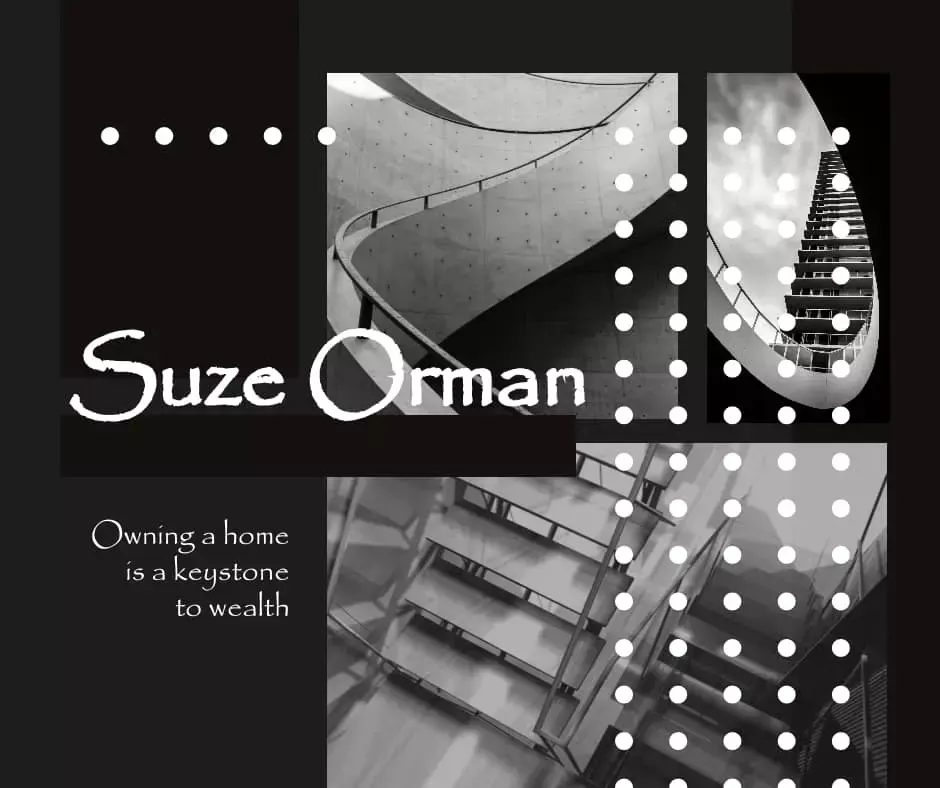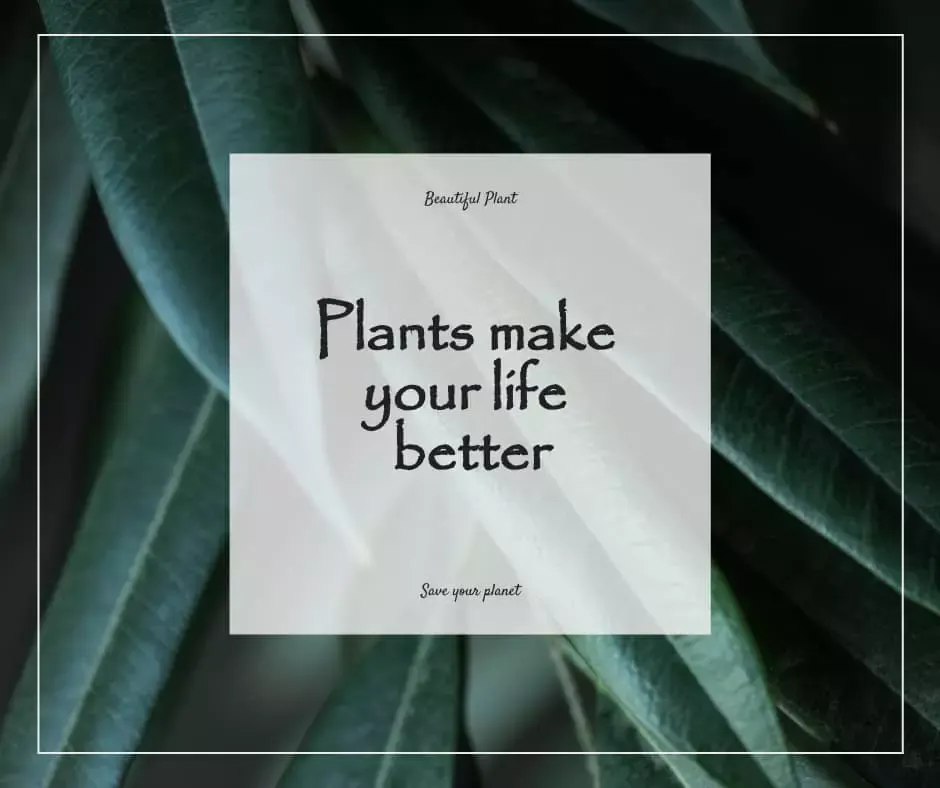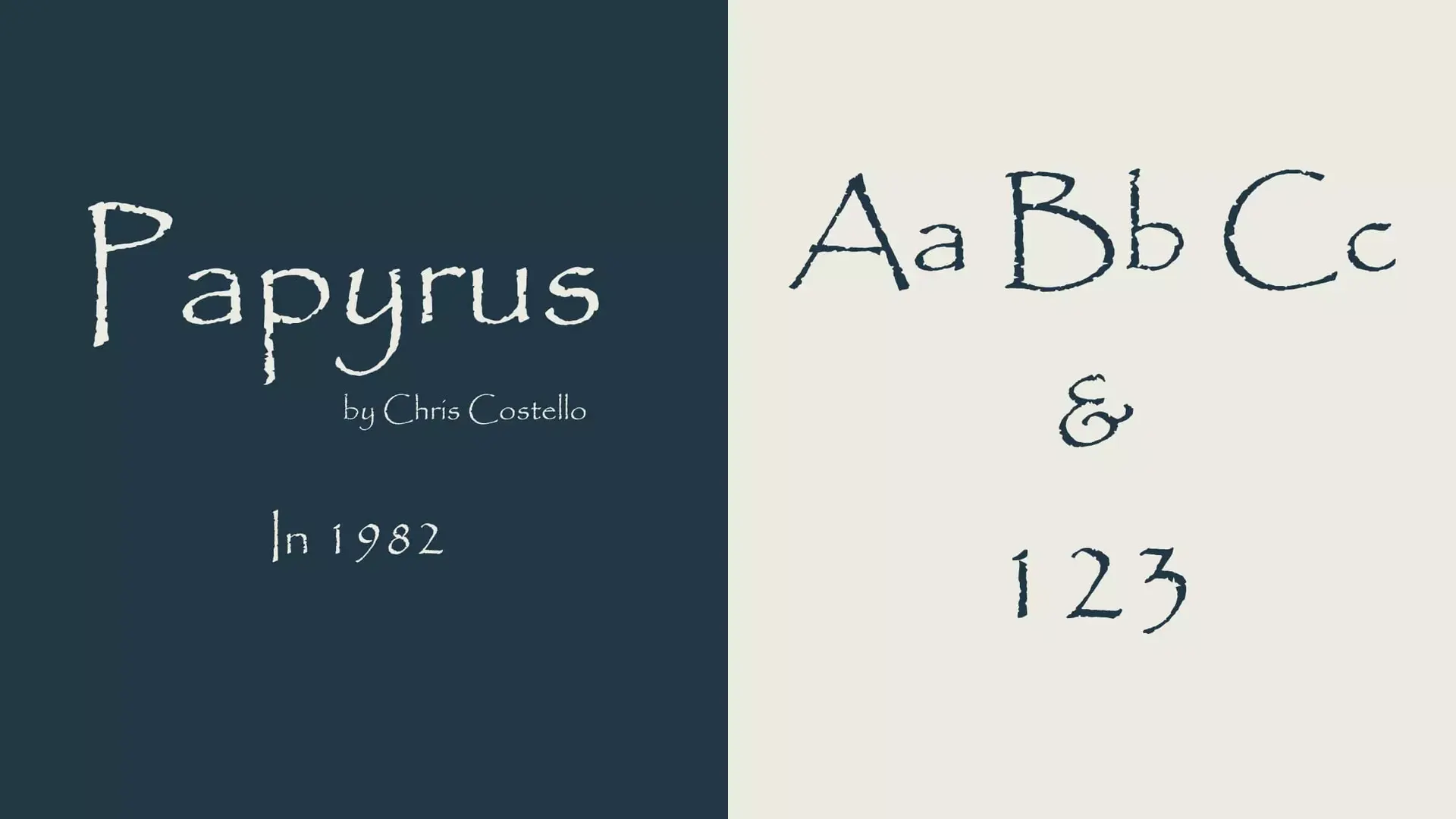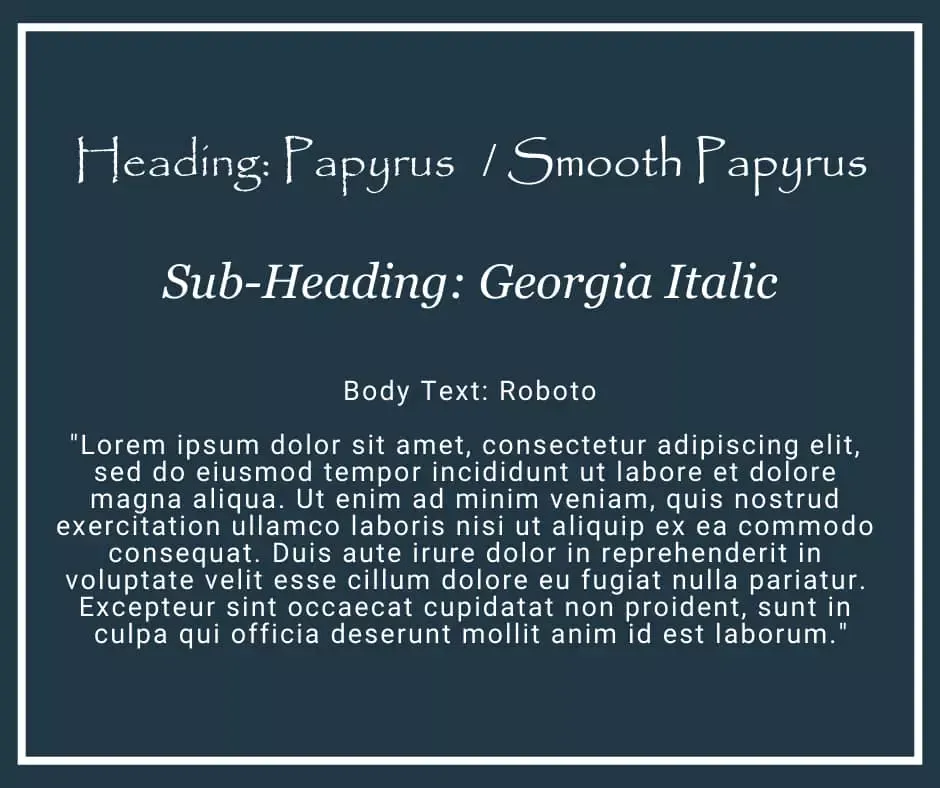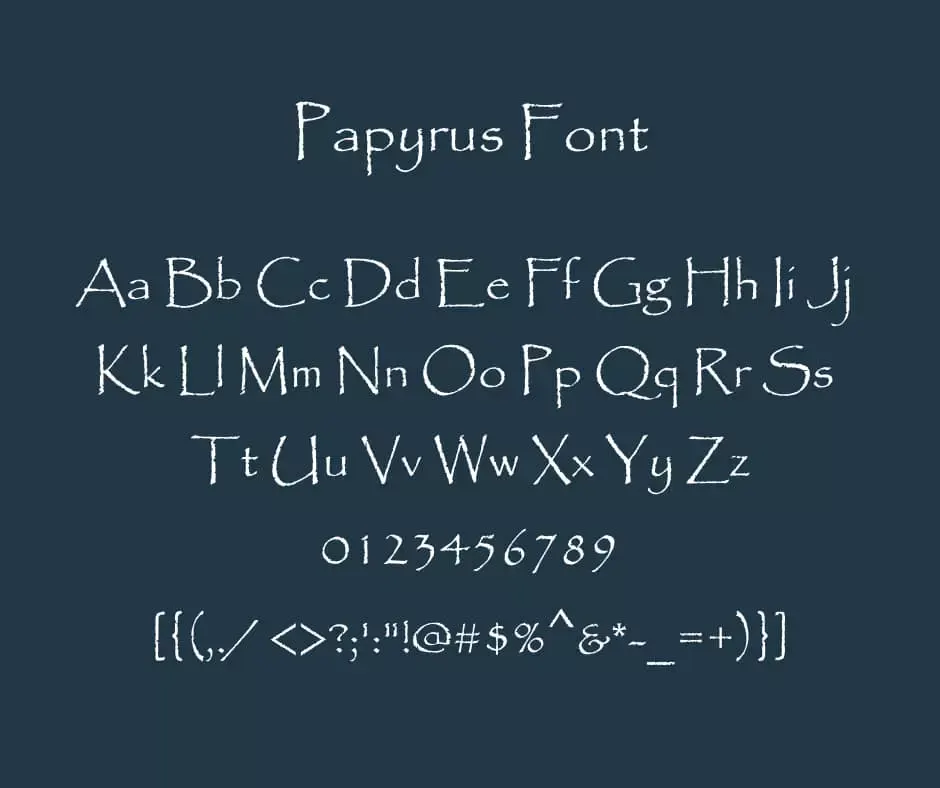
About Papyrus Font
Papyrus font is a handwritten font designed with ancient Egyptian hieroglyphics. This type of font is most commonly used for various purposes, especially by designers and artists. It is a frequently used font created by Chris Costello in 1982. Papyrus has a unique appearance, with rough edges, uneven curves, and high horizontal strokes in the capitals. Papyrus has been used in numerous Microsoft Windows apps. The font is described as a “unique roman typeface [that] skillfully mixes the beauty of a typical roman letterform with the hand-crafted appearance of highly accomplished calligraphy” by ITC, the typeface’s current owner. The free version of Papyrus font download is available here for experimental purposes only.
The font is used in the title and subtitles of James Cameron’s film Avatar. Papyrus font may be seen in the heavy metal band Lamb of God logo and numerous of Viper’s album covers. Papyrus EF Alternatives (or Papyrus EF Regular) is an alternative typeface produced by Elsner+Flake that slightly changed to Costello’s font. It has a shorter, sharper capital P, a capital E with a more extended top bar than the middle bar, and a swash A.
Usage of Papyrus Font
Papyrus font has been a popular design choice since its birth. Scenery, hieroglyphics, and ancient Egyptian text all call for a sharp and distinct look with a bold but elegant flare that we see in Papyrus font. It is no wonder that most word processing programs come with this font as its standard.
Papyrus Font Combination
Sub-Heading: Georgia Italic.
Primary: Open Sans.
What Type of Font is Papyrus?
Papyrus font is a handwritten font designed with ancient Egyptian hieroglyphics.
Why Papyrus is a bad font?
Papyrus is not a bad font. If you use this font in the right place, it is a suitable font for you, but if you do not use it in the right place, it is not a good font for you.